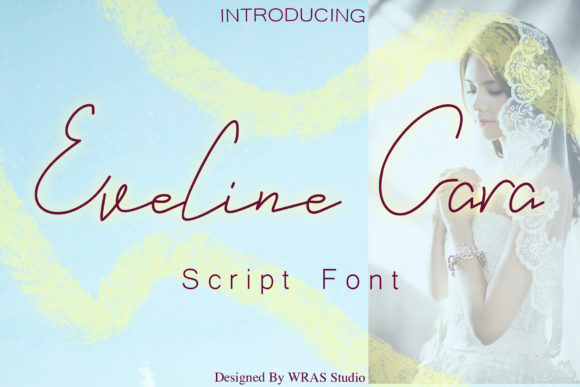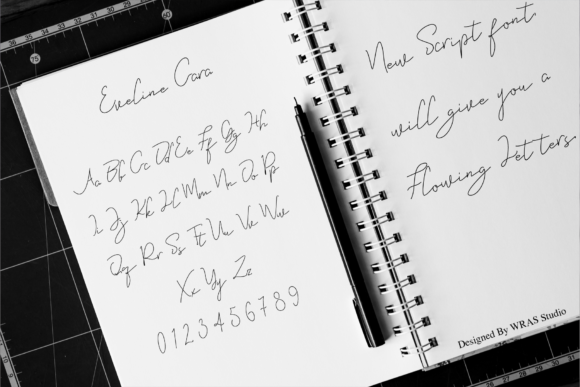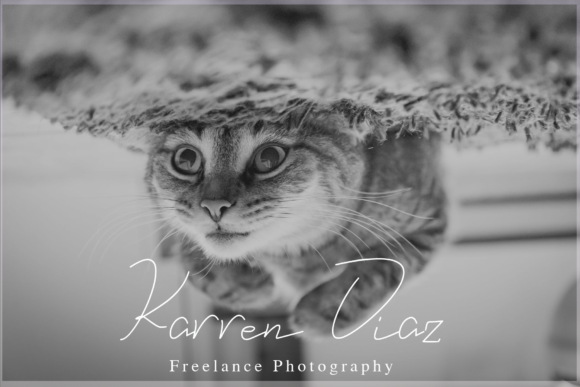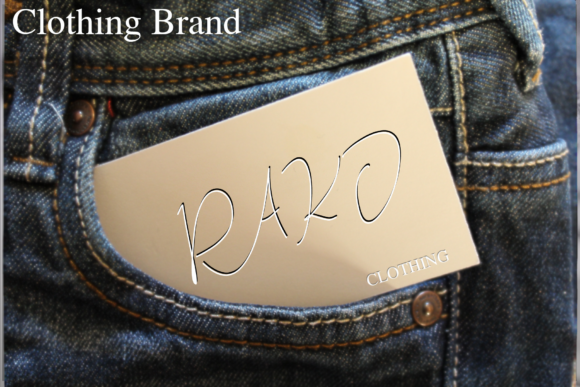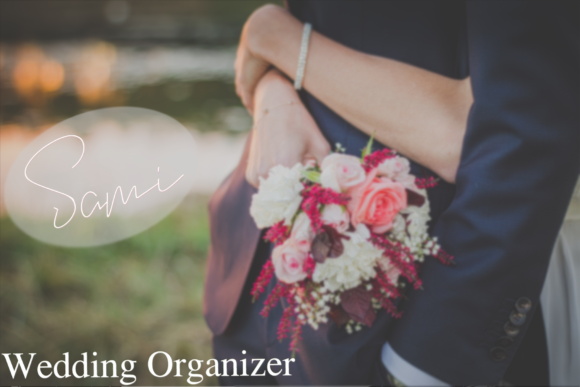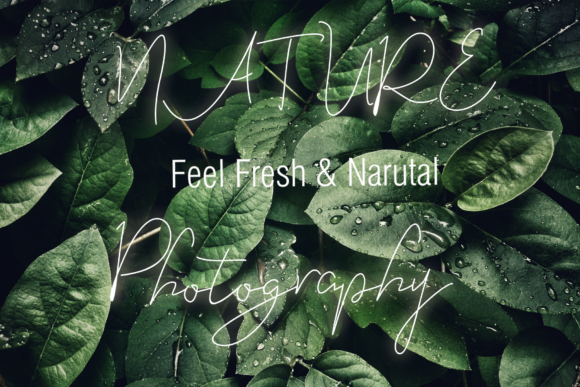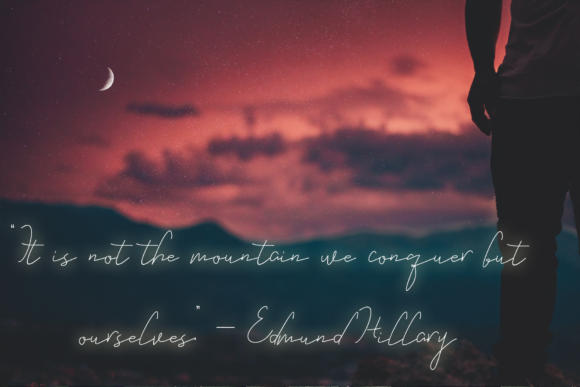
Eveline Cara Font
About Eveline Cara Font
The Eveline Cara is an elegant handwritten font. It includes flowing letters with a great readability and is perfect for adding a natural touch to your designs.